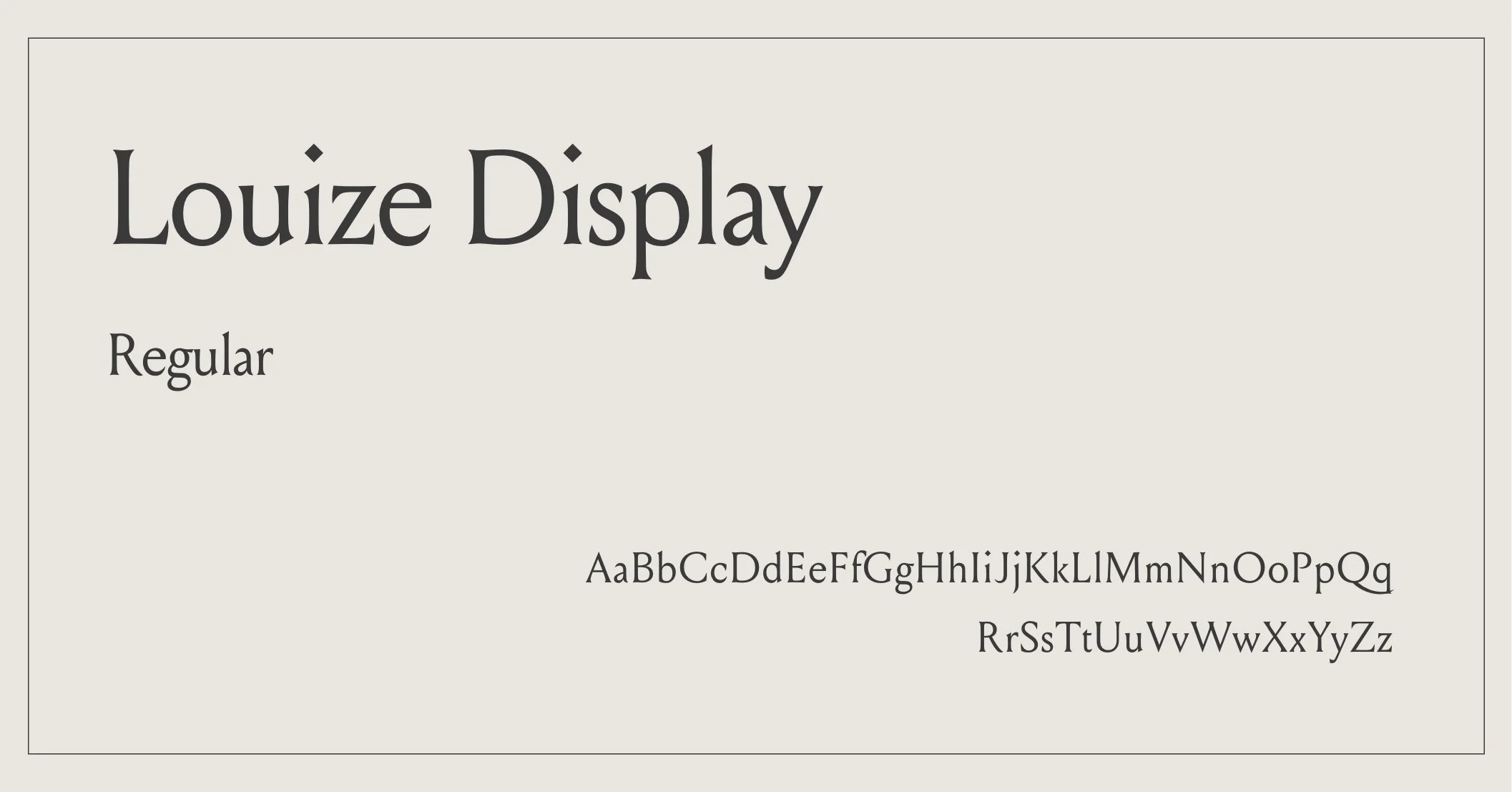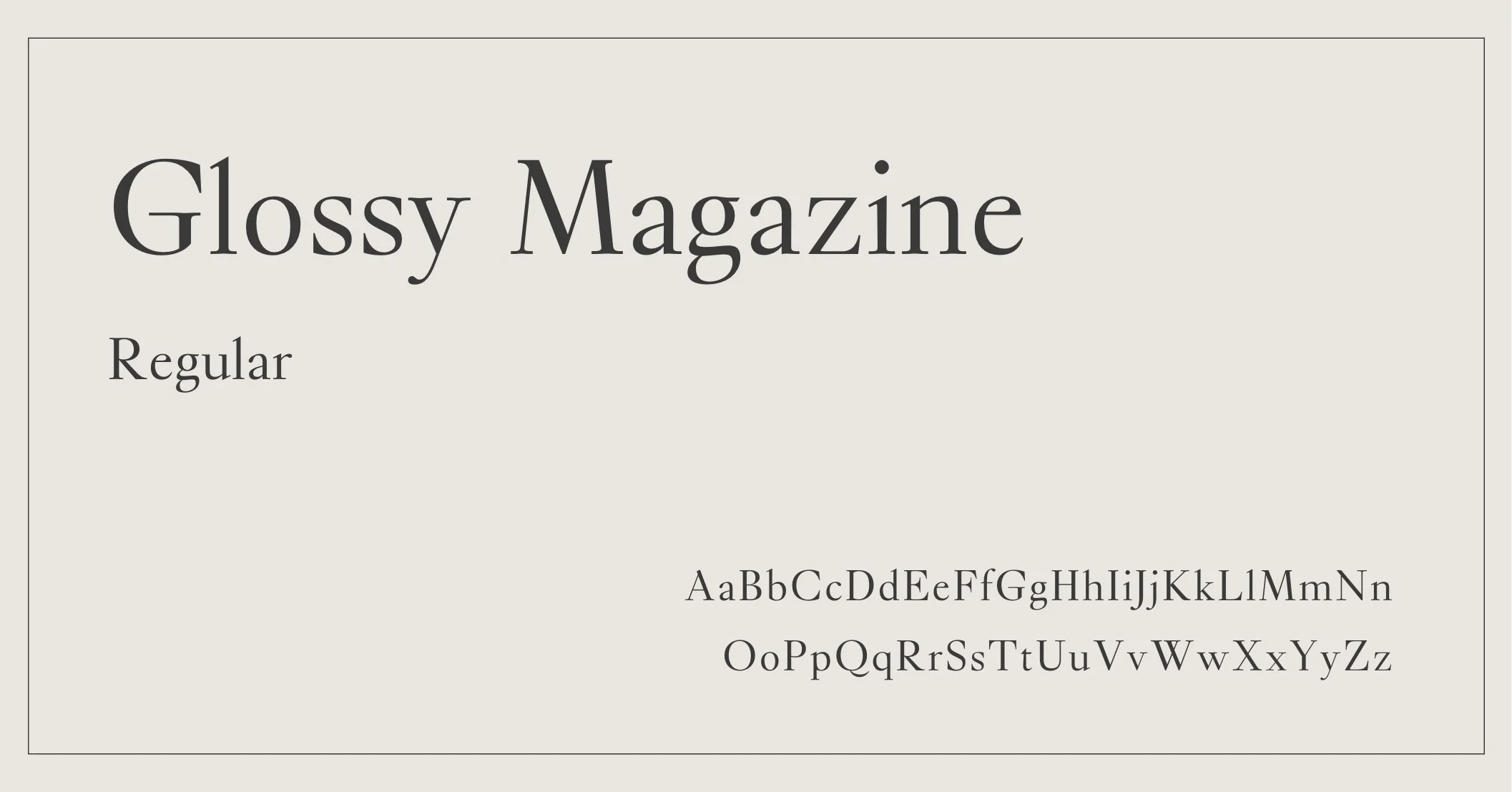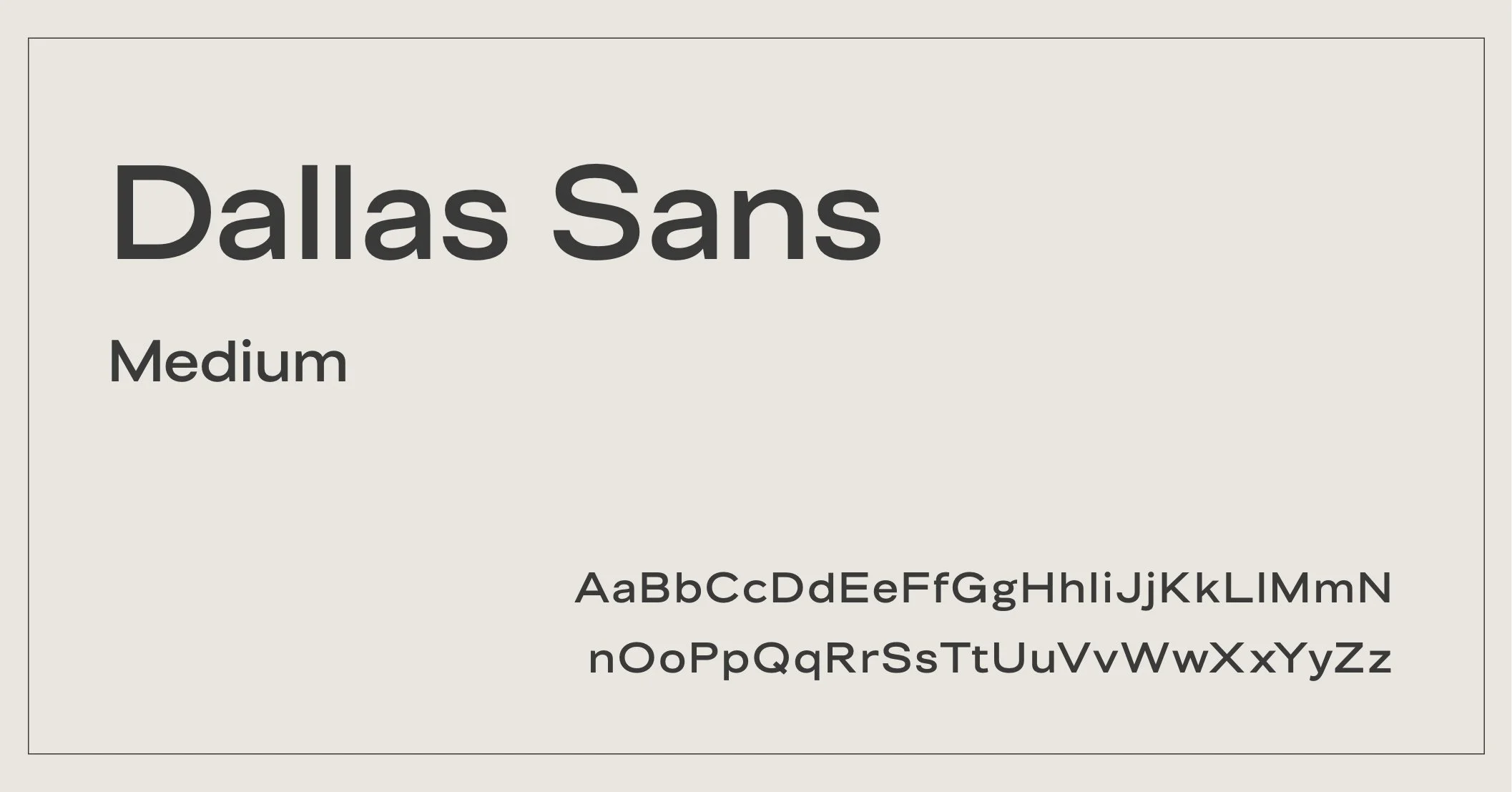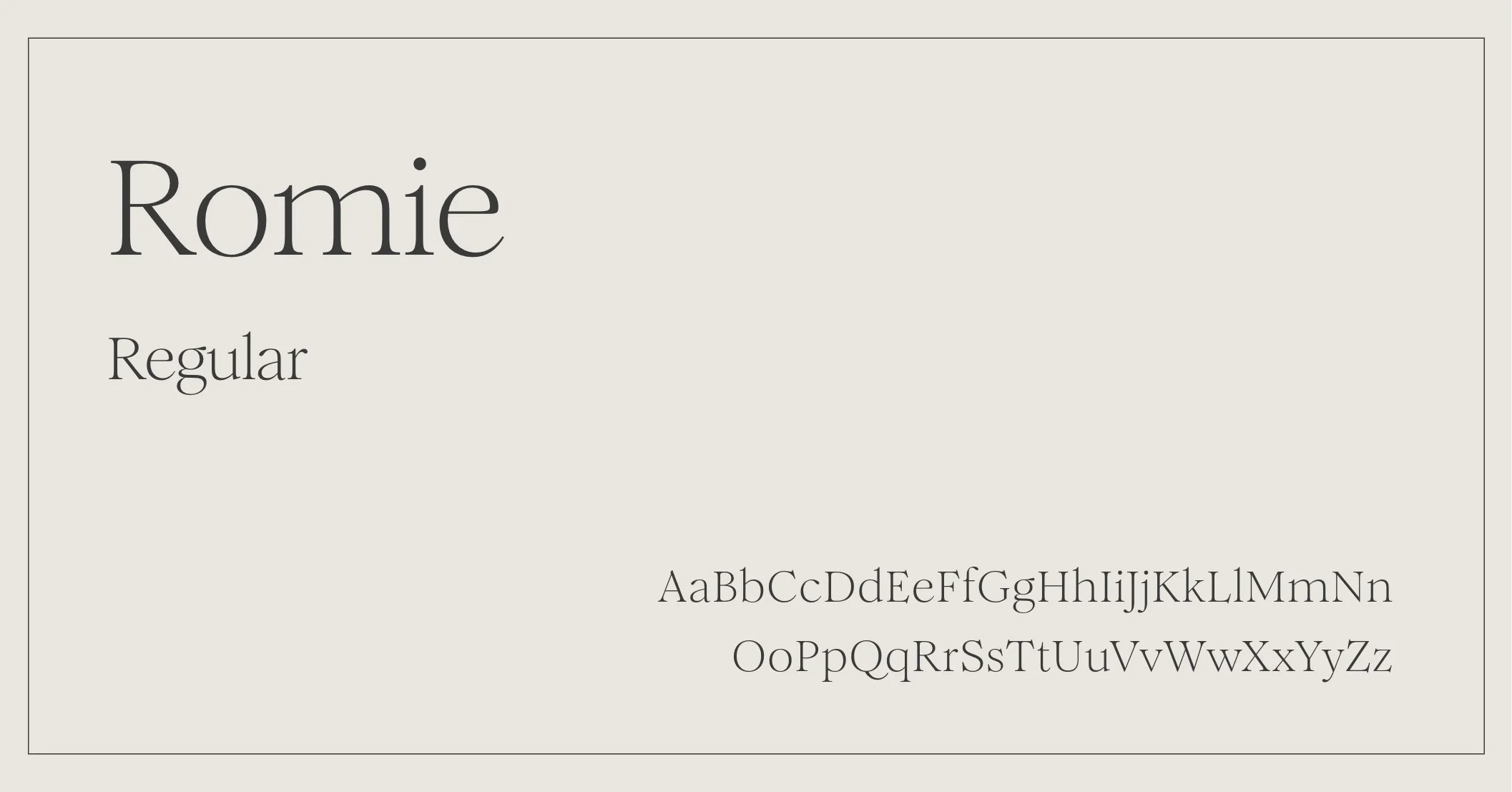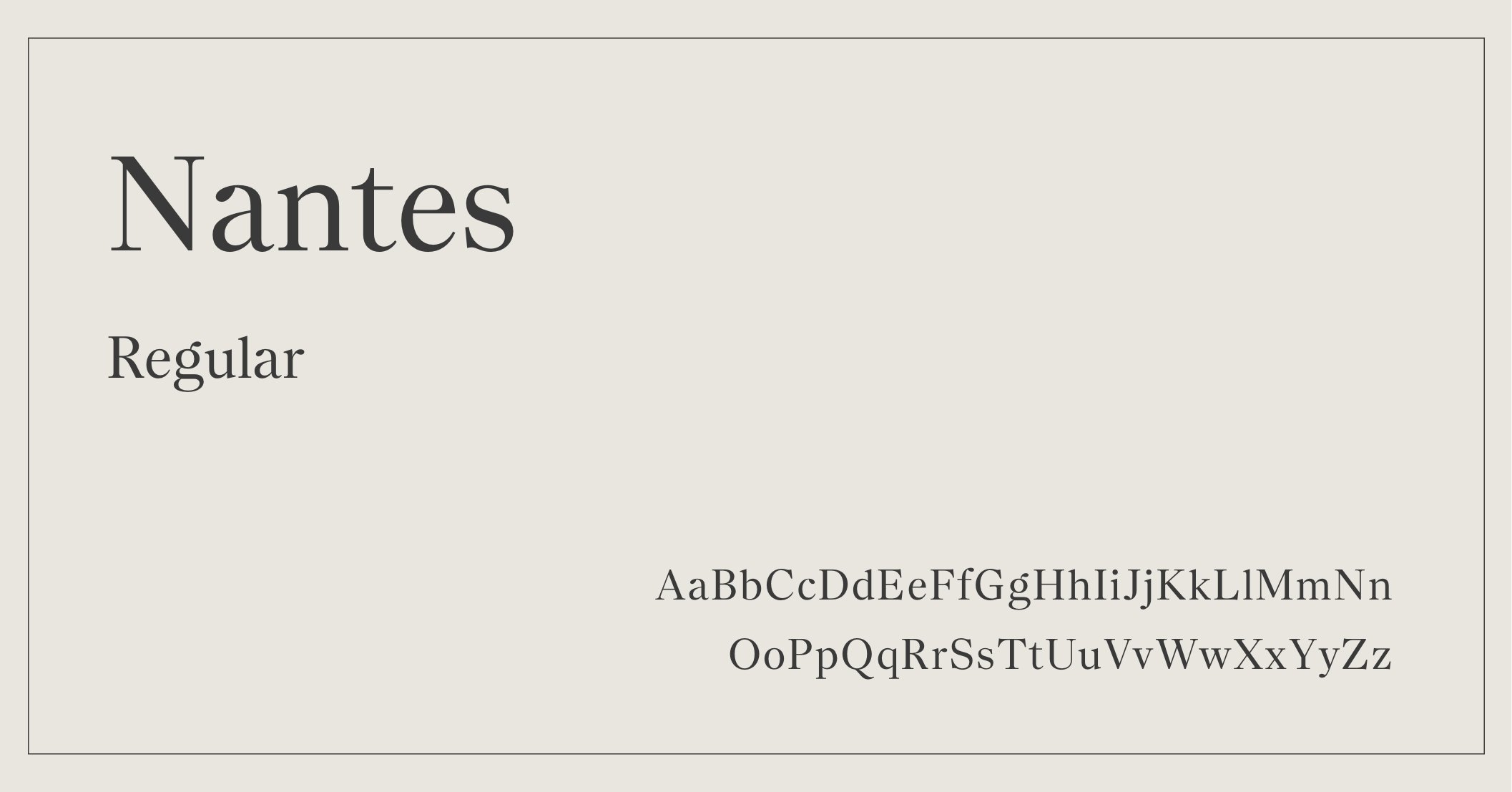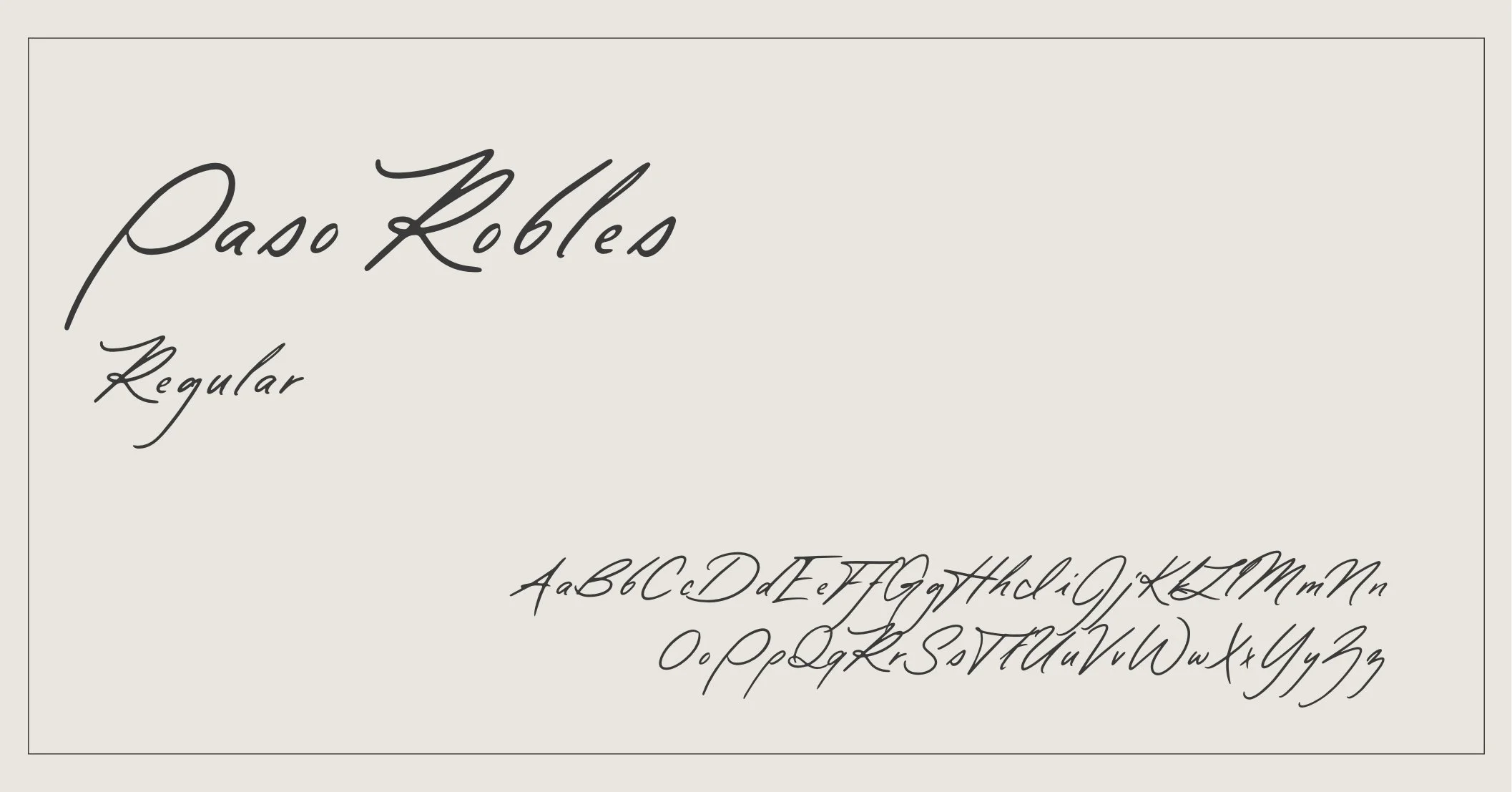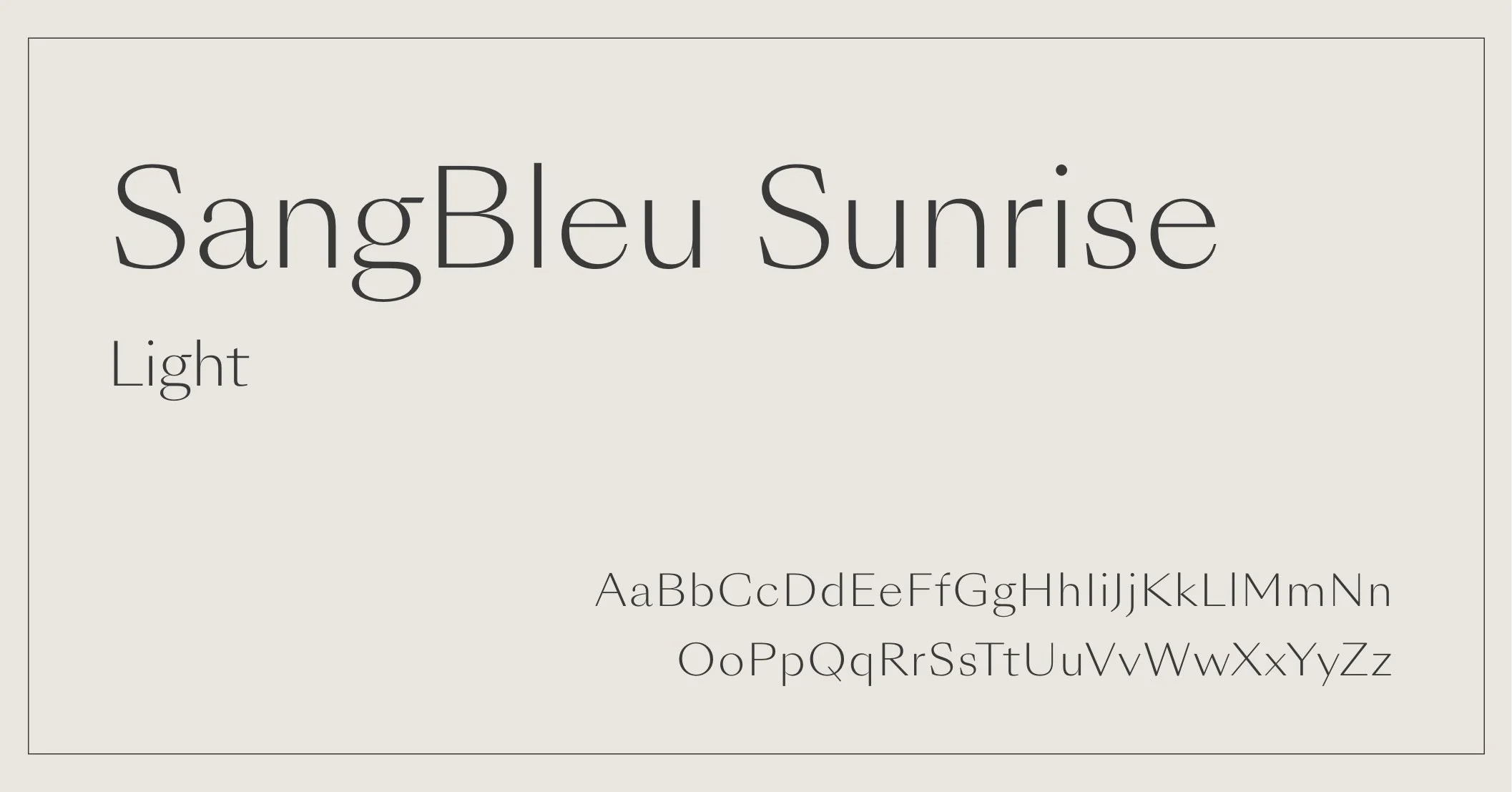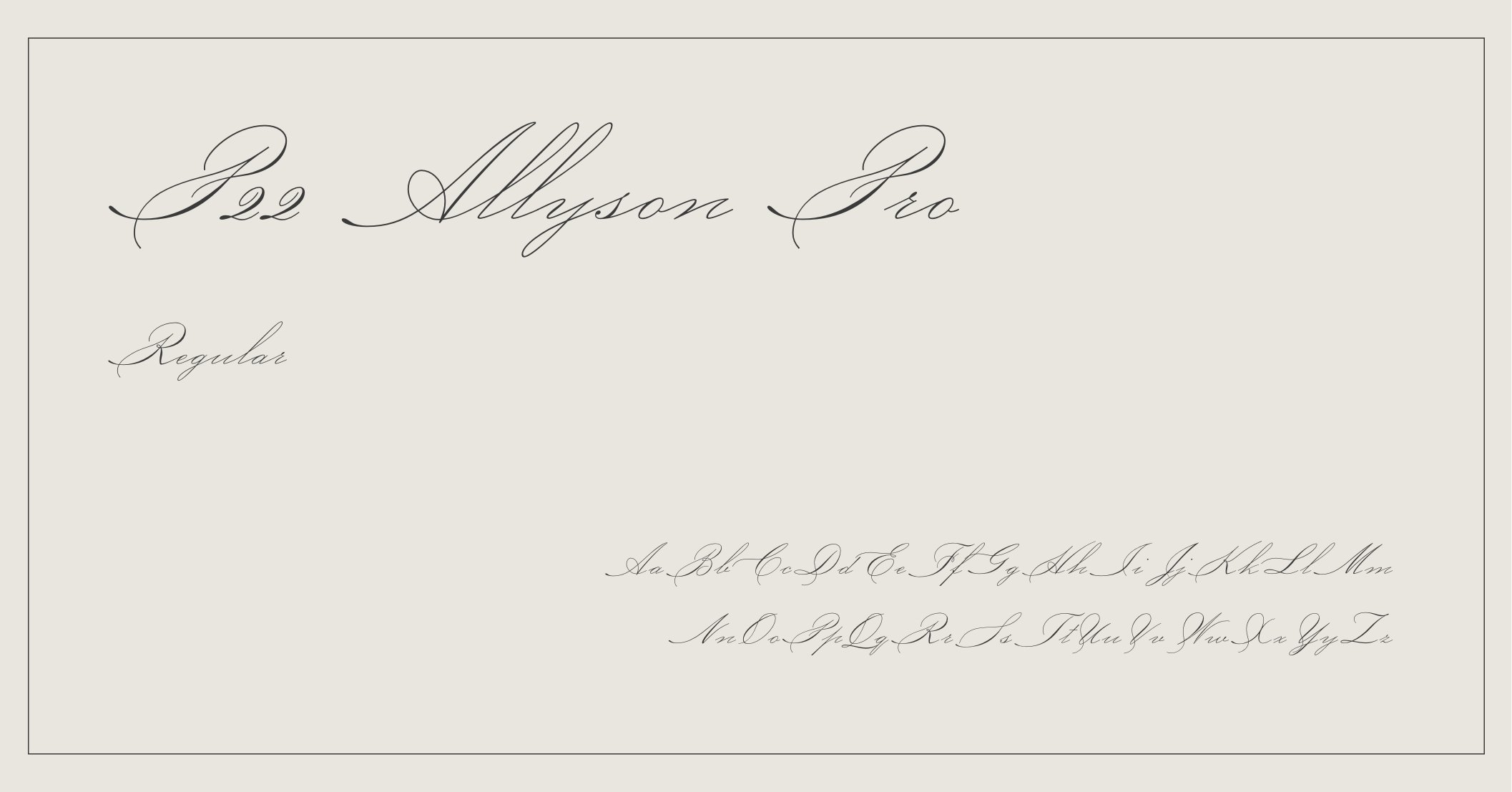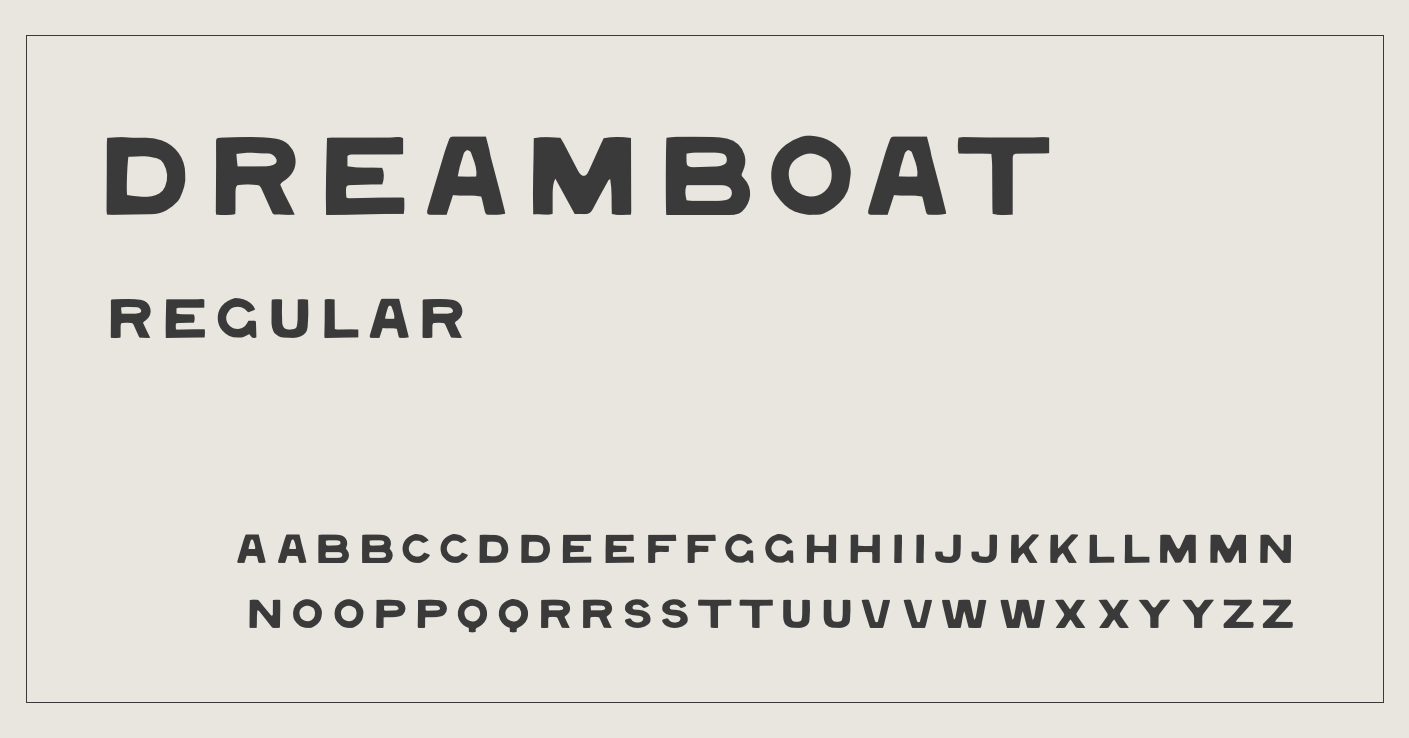
Ten Best Interior Designer Fonts
If you’re an interior designer who is looking to possibly DIY your branding, or gain inspiration for an upcoming rebrand, I’m sharing my top 10 interior designer fonts. Whether your style is contemporary and refined, organic meets minimal or full maximalist–I’ve got a font that could possibly fit your needs.
Now I will say, this round up was really fun to create and pull together, but this does not take the place for true brand strategy and design. Consider this more of an inspiration and spotlight on typography for interior designers.
Interior Design Font Line Up
Dallas Sans: Contemporary Sans Serif
Dallas Sans has recently been released by Jen Wagner and immediately caught my eye. It feels contemporary, minimal and yet still very thoughtful and refined. Not to mention this font has a variety of weights (6 total), so you can go super light and airy or lean grounded or bold with a heavier weight option.
I love Dallas Sans for a more modern and minimal interior design brand mark or even used as companion typography as a subheading.
Dreamboat: Imperfect Display Typeface
This imperfect display typeface by Taylor Penton offers wide forms, soft edges and just enough refined detail without overdoing it. Ideal for interior design brands who lean more organic with a modern twist or want something that feels not as elevated but still memorable. I envision this for a West Coast interior design brand, or one that’s rooted in the desert.
SangBleu Sunrise: Modern meets Refined
This stunning and refined font has been bookmarked for an interior design project. It’s elevated and refined, but without feeling over-the-top or pushed. This font can feel grounded and tasteful, especially when shown in all caps. I love this for a boutique style interior design firm who are pushing the envelope and wanting a memorable brand without the fuss.
Gatwick jet: Vintage Meets Memorable
Gatwick stands out with its tapered stems, sharp terminals and eye-turning details. This font resonates with vintage and contemporary aesthetics alike, and is ideal for a quirky and award winning interior design branding project. This font also has a wide range of opportunities–from the Glider, Jet and Jumbo families.
Romie: Soft and Refined Interior Design Font
Talk about a classic with a twist. Romie gives interior designers a reliable typography option with unexpected moments of delight derived from calligraphy. Ideal for an interior design logo concept or used as companion text for headings, you can’t go wrong with Romie. I especially love Romie for a big city based interior design firm, who offers a full-service approach and high client experience.
Nantes: Classic and Enduring Font
Nantes is a serif typeface that blends rich graphic character with solid functionality, making it perfect for a variety of design applications. With a nod to classic serif design, this font is perfect for those interior designers who lean more classically trained or want an enduring and ageless interior design logo.
Glossy Magazine: Editorial Font with a Twist
Glossy Magazine by Bold Decisions offers an editorial serif font with a twist. Designed specifically for headlines or larger text, this serif is ideal for an interior design branding project–one that wants to feel both sought after and elevated. I especially love this font in all caps, it just feels so classic, yet with a modern twist.
Louize Display: Understated yet memorable
Louize Display by 205TF offers a font that feels both personal and professional all at once. It’s a contemporary rendition of the beloved Louize, offering a more approachable and softer serif. I think Louize Display has a special place for interior design studios who want to feel both contemporary and casual, while still taken seriously.
Paso Robles: Organic and Elevated Handwritten Font
Paso Robles by Jen Wagner captures the feeling of a handwritten note on textured paper, making it simple to create design that feels personal and just a little bit undone. I love this font selection for part of an interior design brand story–whether it be intertwined in part of the logo or submarks or reserved as an accent font to give that personal touch on collateral and website experiences.
P22 Allyson Pro: Regal, Classic Script Font
If you’re searching for an interior design font that feels regal, high-end and sophisticated, this Adobe script font may be a great choice for you. Due to the delicate style, it’s recommended to use sparingly for those special moments of delight and detail.
I’ve included a few fonts that lean luxury in this current roundup: Glossy Magazine and PP Allyson Pro, as well as SangBleu Sunrise. I also have a dedicated post to luxury fonts that can be found here.